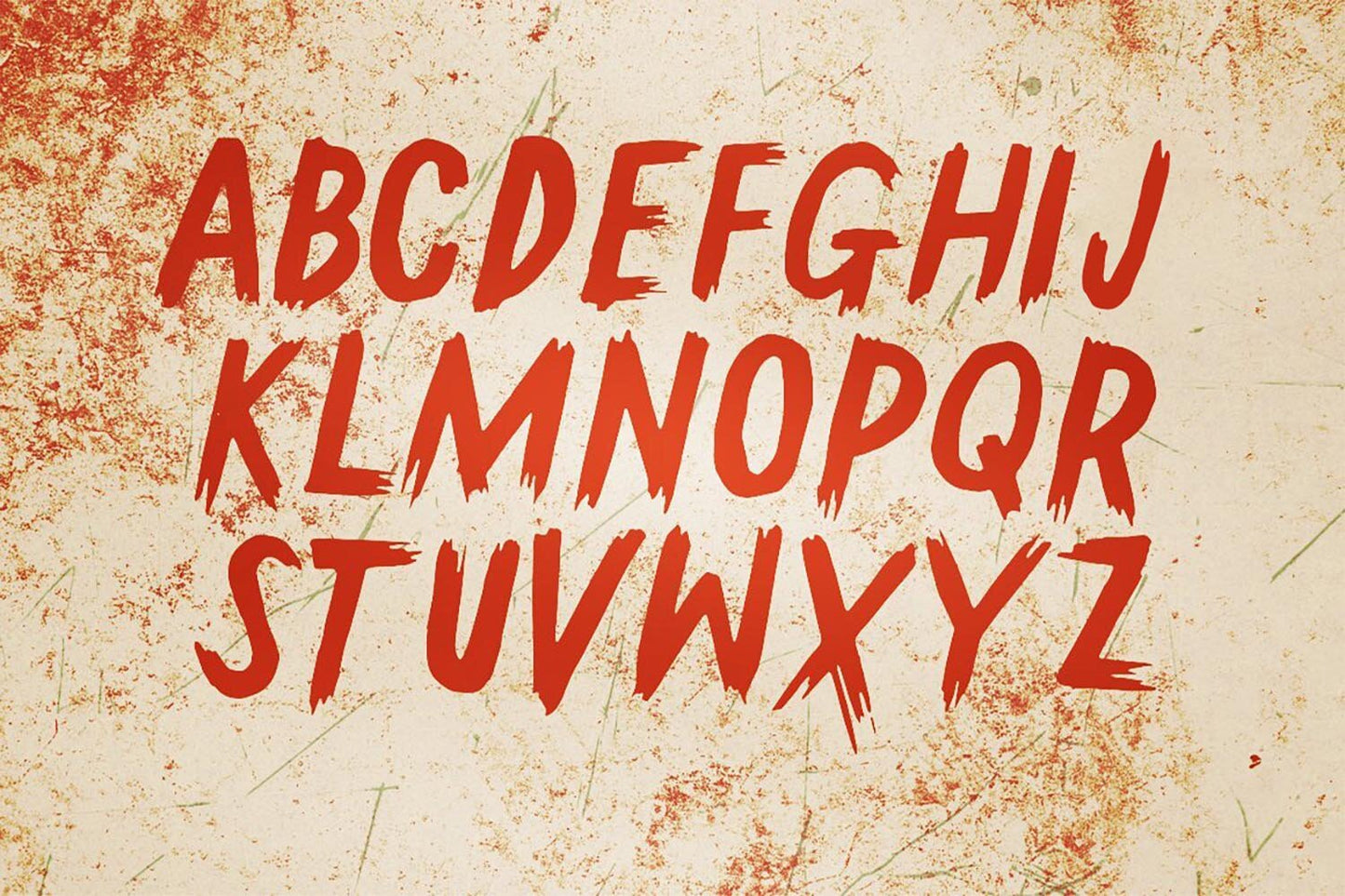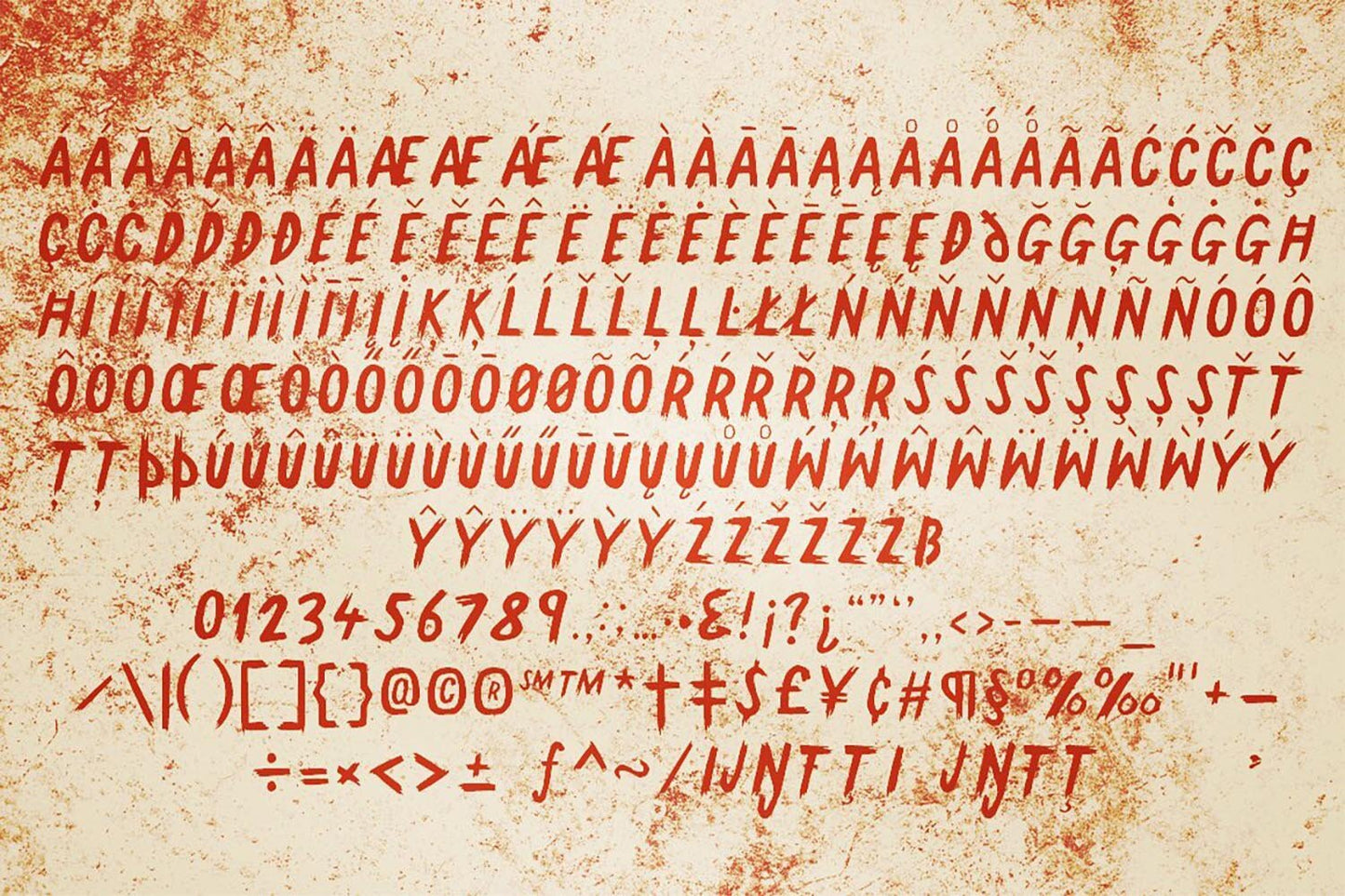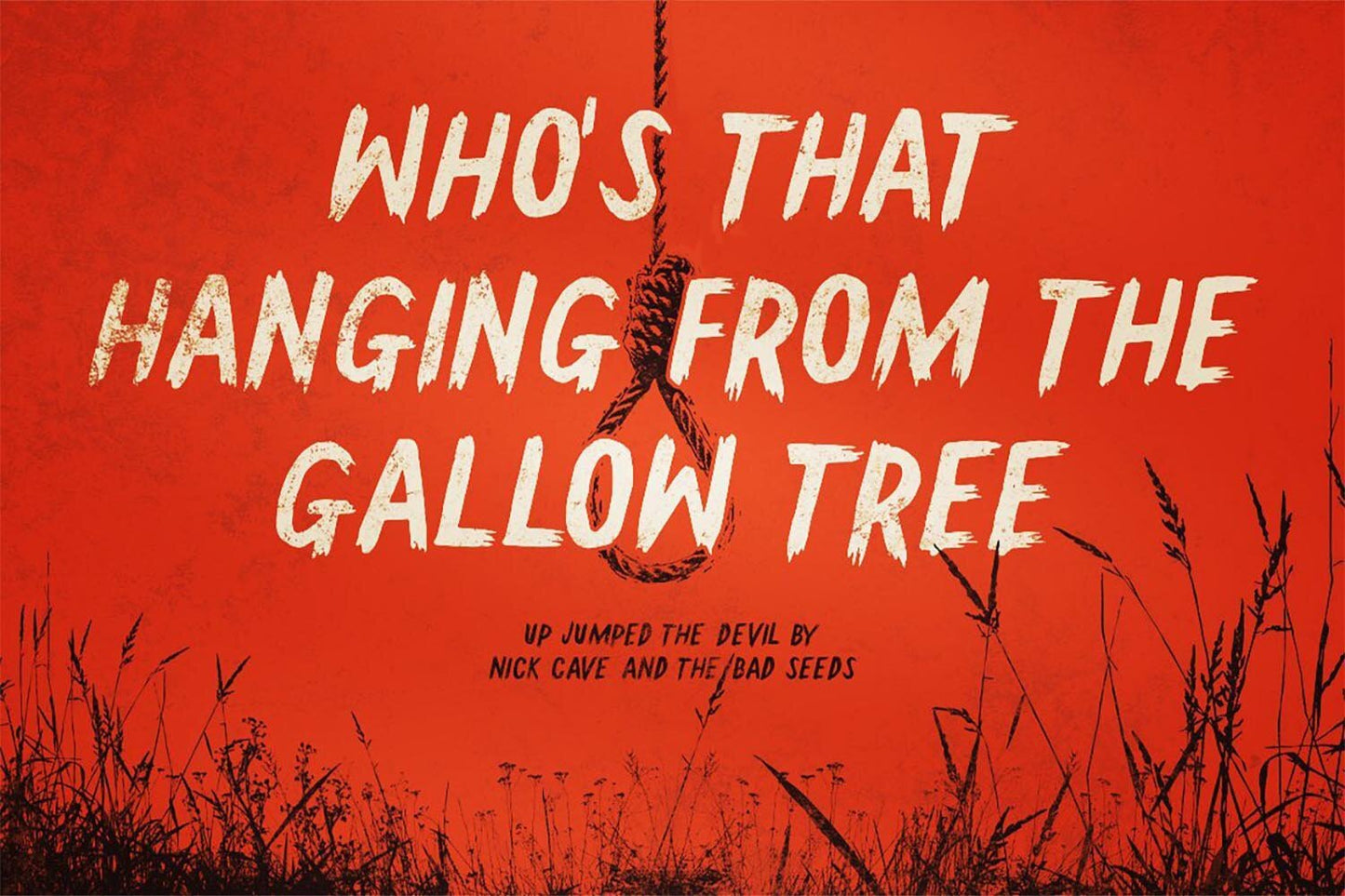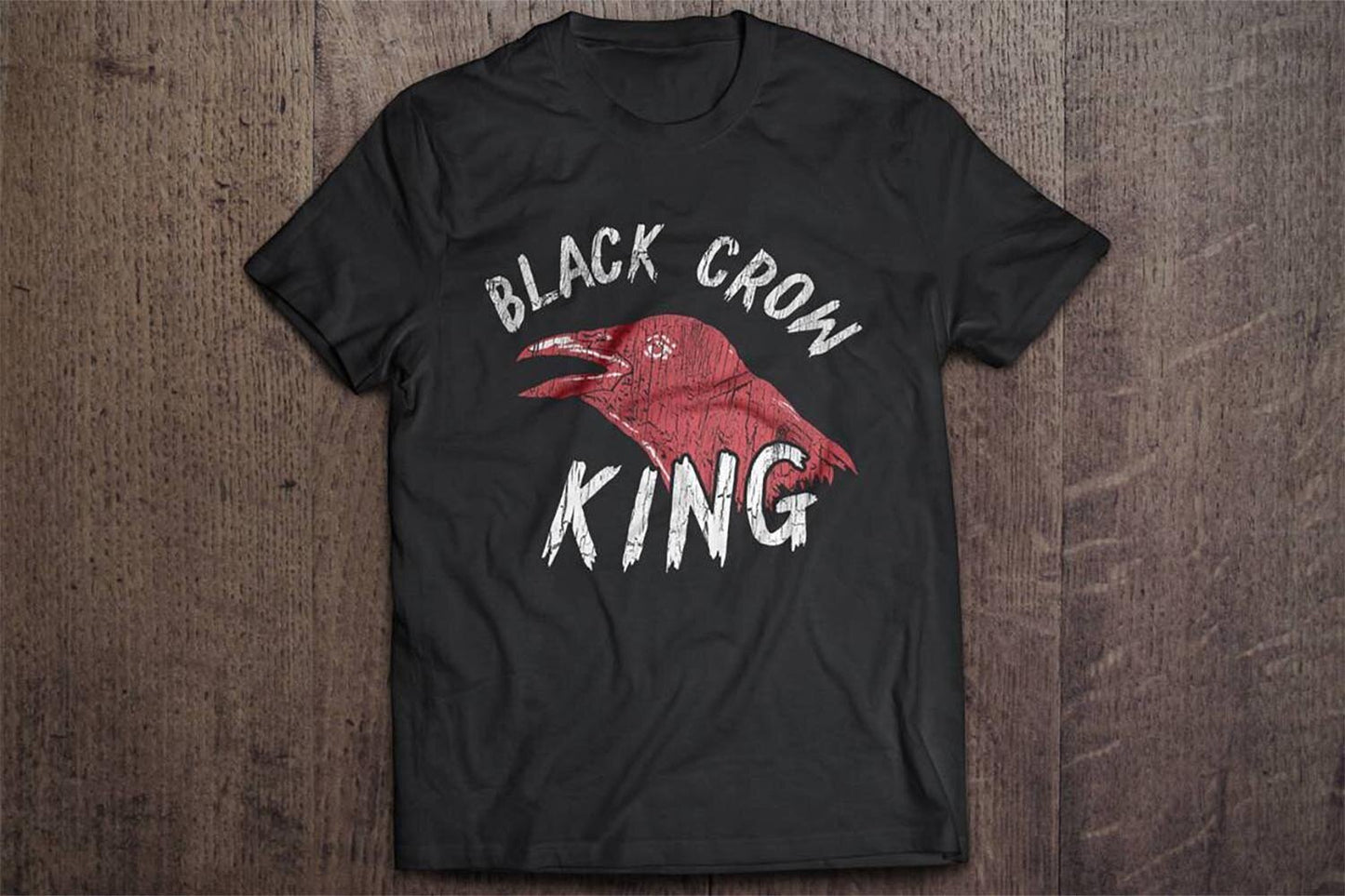
Gallow Tree
About Gallow Tree
Gallow Tree is a brush typeface drawn with a Faber Castell brush pen, aiming for a horror-like appearance with a touch of grunge.
It draws inspiration from classic horror posters like The Creature from the Black Lagoon and House of Dracula, capturing the essence of those bright, brash, and tacky old horror movie posters.
So, the font is creepy yet retains its liveliness and legibility.
If Gallow Tree font were a rock star
If the font Gallow Tree were a rock star, it would be the legendary Ozzy Osbourne. Just as Ozzy Osbourne is often associated with dark and sinister themes in rock music, Gallow Tree font embraces the eerie and macabre in the world of typography.